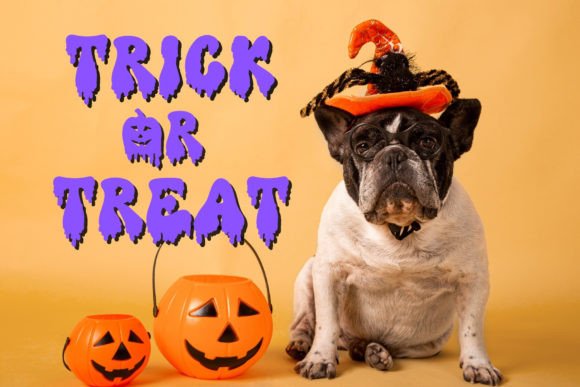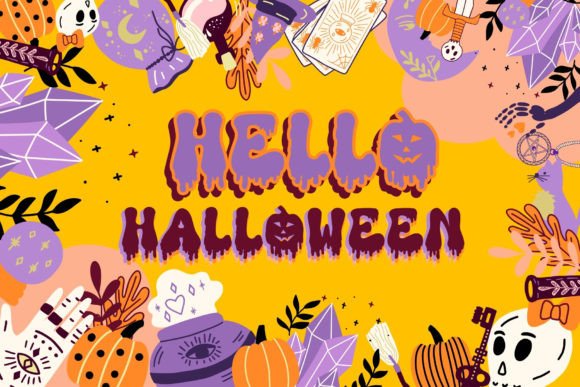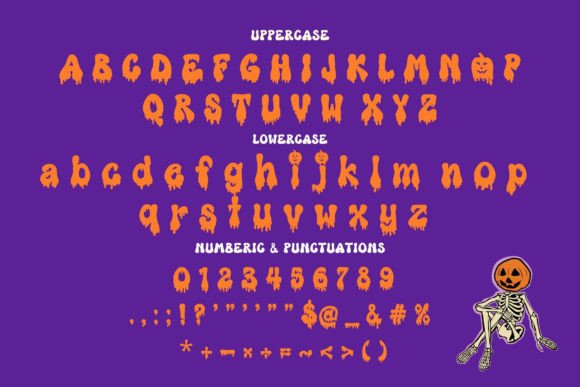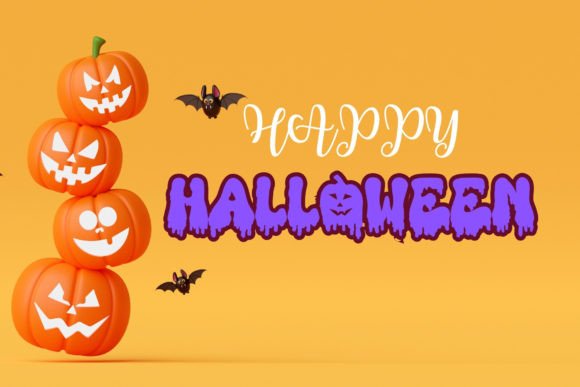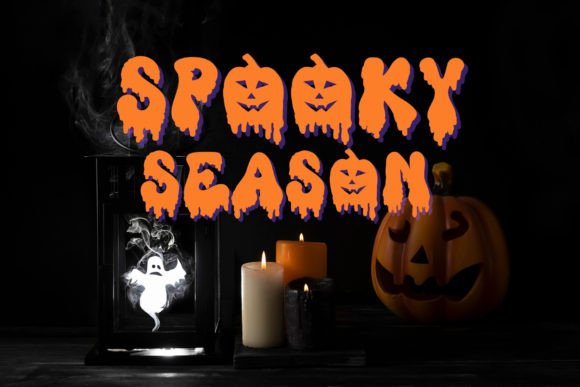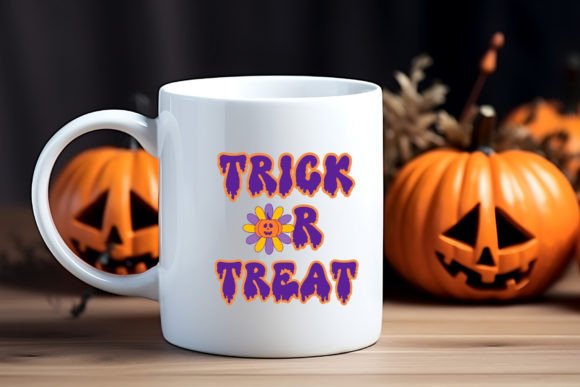
Introduction to Halloween Retro Font
As a designer, have you ever found yourself in the midst of a creative project, searching for the perfect font to add that extra touch of magic? It’s a moment we’ve all experienced, and one that can make or break the overall aesthetic of our design. For those seeking a unique and eye-catching font, we’re excited to introduce you to the Halloween Retro Font – a delightful display font that’s sure to cast a spell on your audience.
With its playful and authentic vibe, the Halloween Retro Font is an excellent choice for designers looking to add a touch of whimsy to their projects. Whether you’re working on a blog post, logo, advertisement, or invitation, this font is sure to bring a smile to your audience’s face. And the best part? It’s available for free download, making it an accessible design resource for designers of all levels.
Key Features of Halloween Retro Font
- Unique, spooky design perfect for creative projects and design resources.
- Perfect for Halloween-themed designs, such as party invitations, decorations, and social media graphics.
Honest Review: Halloween Retro Font
As a designer, I’m always on the lookout for high-quality design resources to elevate my creative projects. The Halloween Retro Font caught my eye, and I was excited to put it to the test. Here’s my honest review.
- Unique and quirky design that’s perfect for Halloween-themed projects.
- High-quality font with crisp, clear lines that print well.
- Only available in a single style, which may limit its versatility.
- No support for bold or italic styles.
Overall, I was impressed with the Halloween Retro Font’s unique design and high quality. While it has some limitations, it’s a great resource for designers working on smaller, creative projects. If you’re looking for a fun and quirky font for your next project, I’d definitely recommend giving it a try.
Halloween Retro Font
The Halloween Retro Font is a design resource that adds a touch of vintage charm to your creative projects. This free download offers a high-quality font that can be used in a variety of applications, from invitations and party decorations to digital graphics and social media posts.
Is the Halloween Retro Font a high-resolution design resource?
Yes, the Halloween Retro Font is a high-resolution design resource, making it ideal for use in a variety of creative projects. The font features detailed, intricate designs that are perfect for adding a touch of Halloween spirit to your designs. With its high-quality design, you can be sure that your projects will stand out from the crowd.